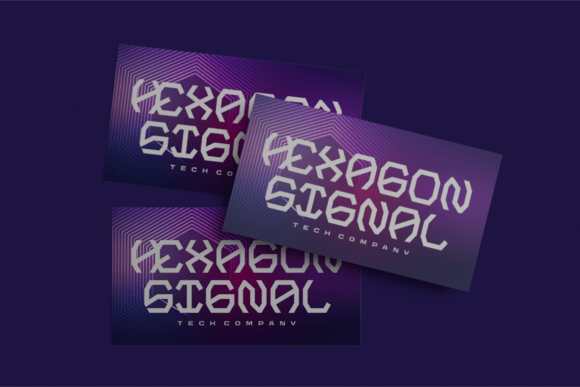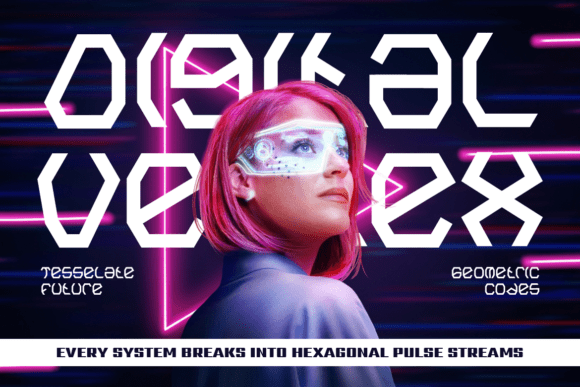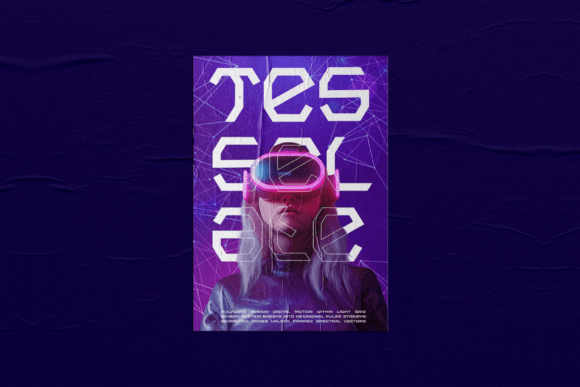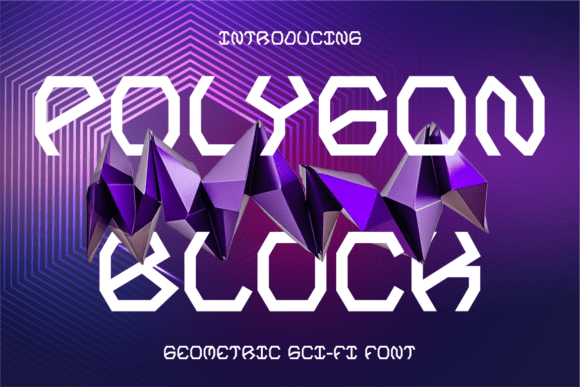
Introduction to Polygon Block Font
Step into the future with Polygon Block, a geometric sci-fi font designed to embody the essence of digital evolution.
Each letterform is constructed with hexagonal and polygonal shapes, reflecting a structured yet edgy personality This font bridges the gap between advanced technology and artistic clarity.